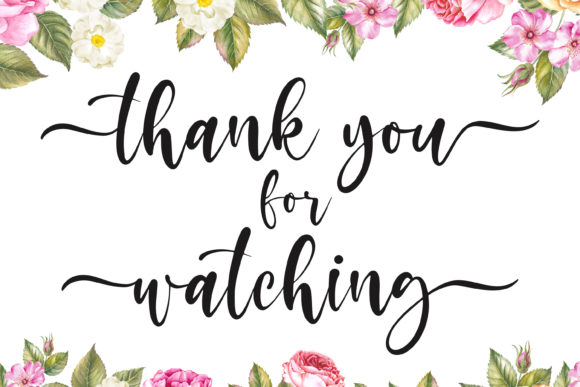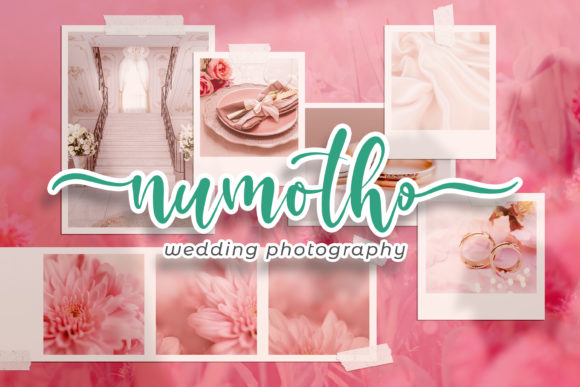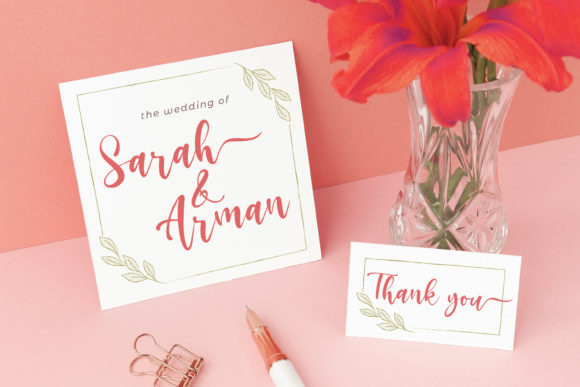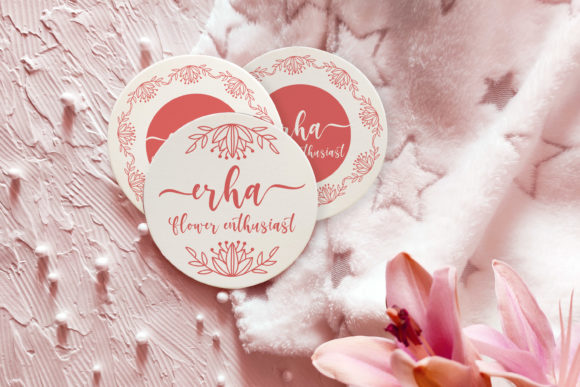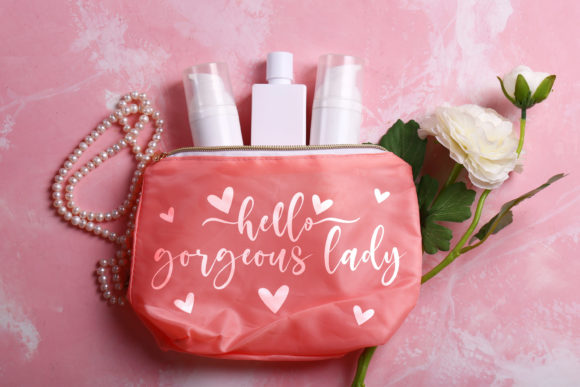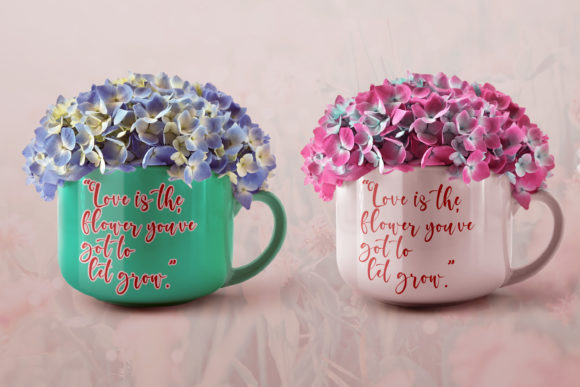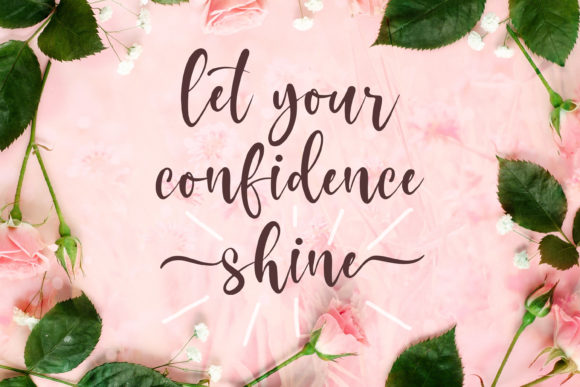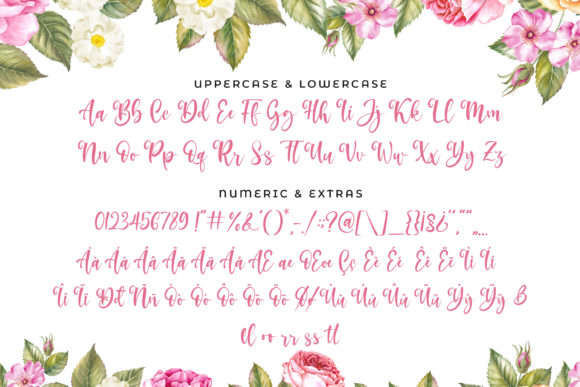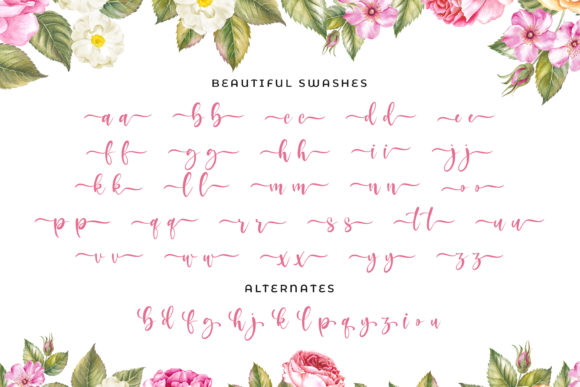
Lovemind Script Font
Lovemind – A beautiful Script with a natural calligraphy look and feel.
This handmade font will make your designs have a beautiful natural touch. It’s perfect for multiple design projects such as Invitations ,logo designs, book covers, crafts and anything else.